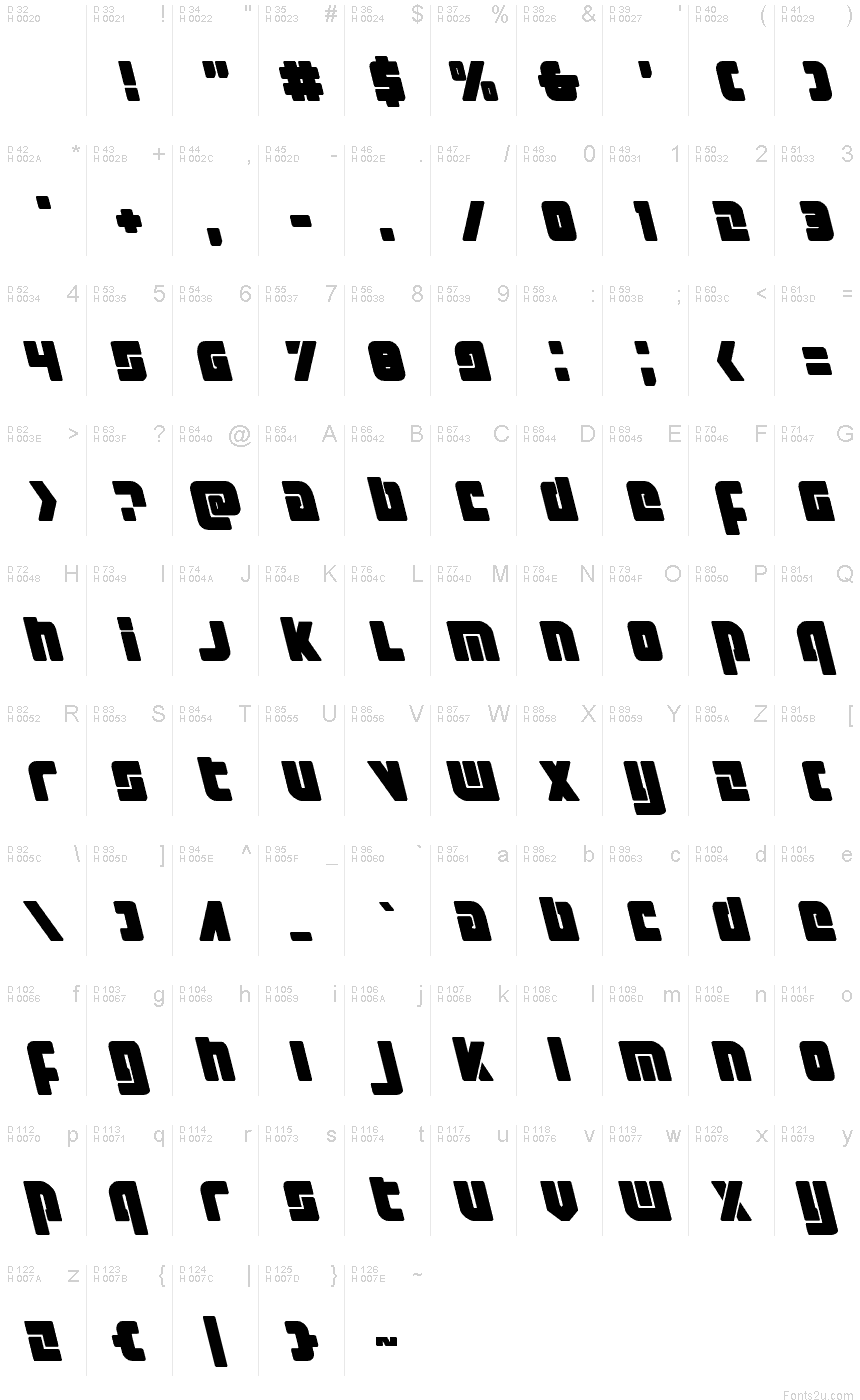
Exoplanet Leftalic, created in 2012 by Iconian Fonts, is a free futuristic display font with a broad, forceful silhouette. Heavy strokes, slanted cuts, tight inner spaces, and occasional stencil-like breaks give the lettering a machine-tooled look.
Science-fiction and gaming audiences will recognize its industrial, spacecraft-inspired attitude. It fits game logos, film title cards, event posters, and merchandise built around mechanical or space themes. Their shared link is the lettering's resemblance to spacecraft markings and machine badges.
Exoplanet is a bold typeface with a complete Latin character set, including the euro sign, and several alternate letterforms for uppercase and lowercase.